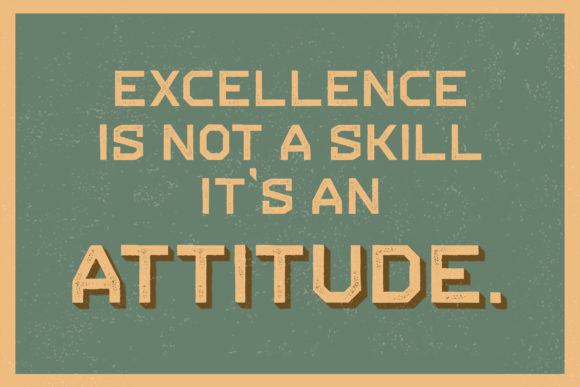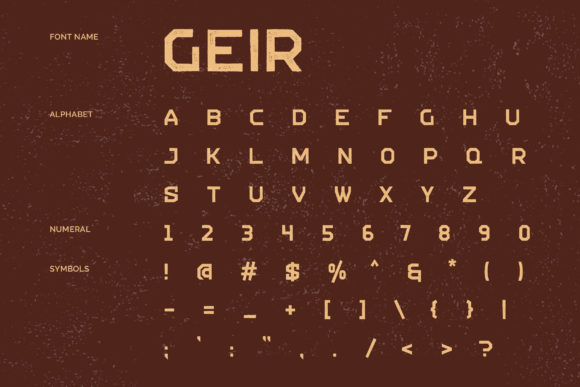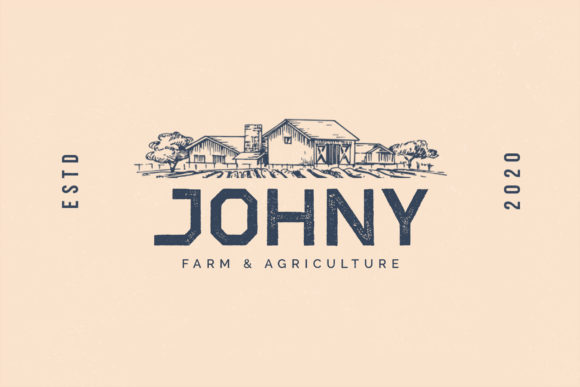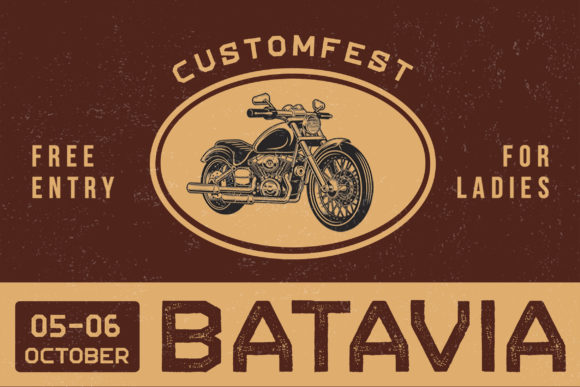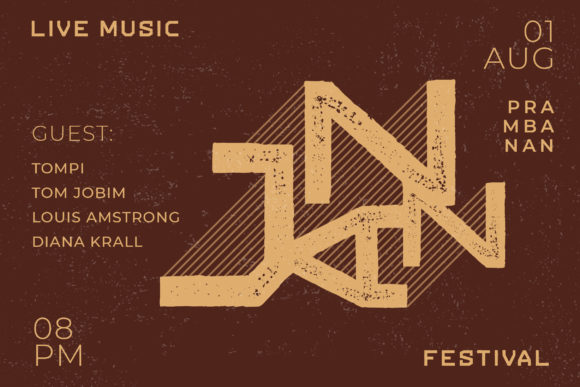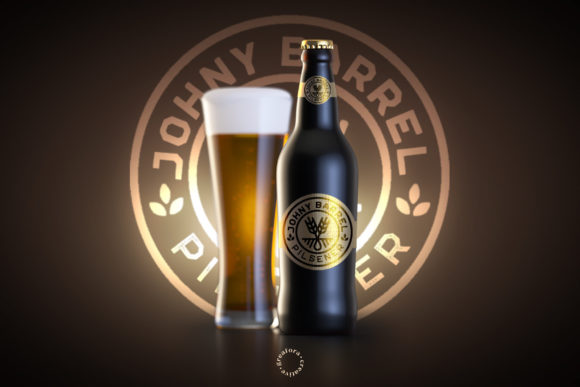
Introduction to Geir Font
Remember the moment when you finally find the perfect design element for your creative project? The one that elevates your idea and makes it stand out from the crowd? That’s exactly what the Geir Font can do for your next design venture.
As a bold, vintage styled and rough textured display font, Geir Font is the perfect addition to any design resource. Its uniquely shaped letters are sure to add a distinct touch to your creations, making it a valuable asset for designers looking to make a statement.
Key Features of Geir Font
- High-quality, professional font suitable for creative projects
- Perfect design resource for logos, branding, and other visual identity elements
- Designed to be versatile and work well in a range of applications and contexts
- Includes a range of characters and symbols to support multilingual typesetting
Honest Review: Geir Font
I recently had the chance to try out Geir Font, and I must say it’s a solid addition to any designer’s toolbox. This free download is perfect for any creative project that requires a clean and modern look.
What works well: ✨ High quality typography, transparent background options, and a versatile range of styles make it easy to incorporate into any design. The font is also incredibly easy to use, even for those without extensive design experience.
- ✨ Perfect for digital designs, such as websites, social media graphics, and mobile apps
- ✨ Can be easily customized to fit any brand identity or design aesthetic
Limitations: ⚠️ While Geir Font is an excellent resource, it’s worth noting that the font family is relatively small compared to some other popular options. Additionally, some users may find the sans-serif design a bit too minimalist for certain projects.
Overall, I’d give Geir Font 4 out of 5 stars. It’s a high-quality design resource that’s perfect for a wide range of creative projects. While it may not be the best fit for every project, it’s definitely worth checking out for anyone looking for a clean and modern font.
Tips for Getting the Most Out of Geir Font
Use Geir Font for creative projects such as brochures, flyers, and business cards. You can also use it for free download and customize it to fit your design needs. Make sure to use a transparent background to give your design a clean and professional look.
Geir Font is a high-quality design resource that can be used in various creative projects. It’s perfect for designing logos, branding materials, and marketing materials. You can also use it for personal projects such as invitations and greeting cards.